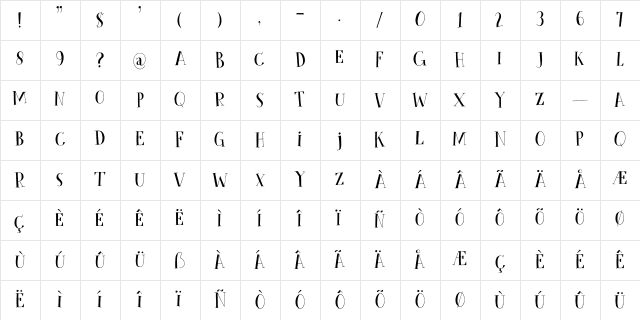
Cykelsmed DEMO Regular
Design Context for Cykelsmed DEMO Typeface
Cykelsmed DEMO is a composed and adaptable typeface that performs quietly and consistently across a wide range of design contexts.